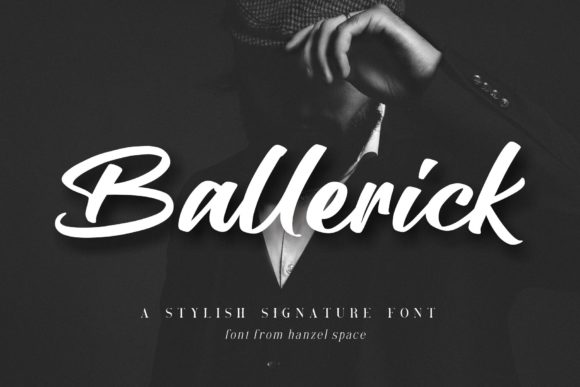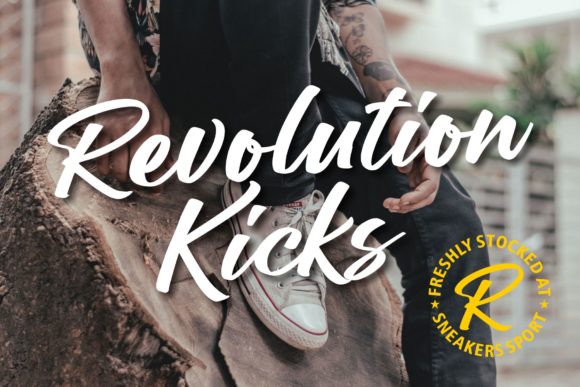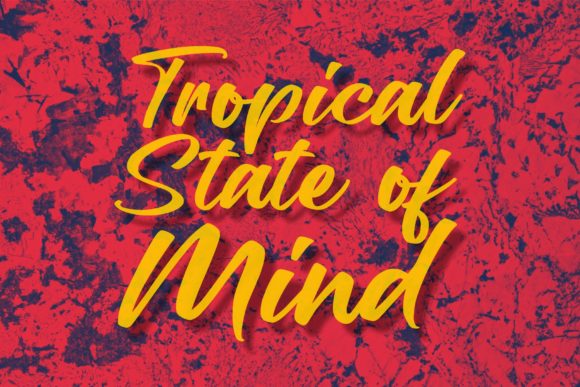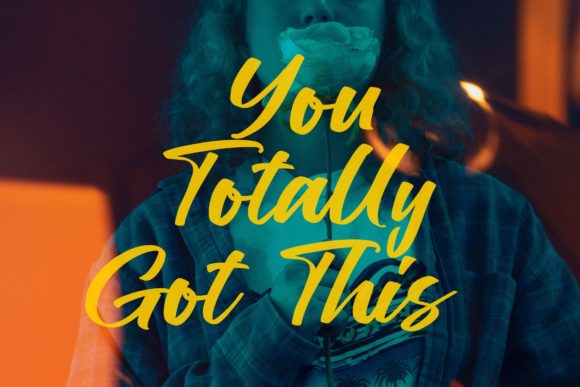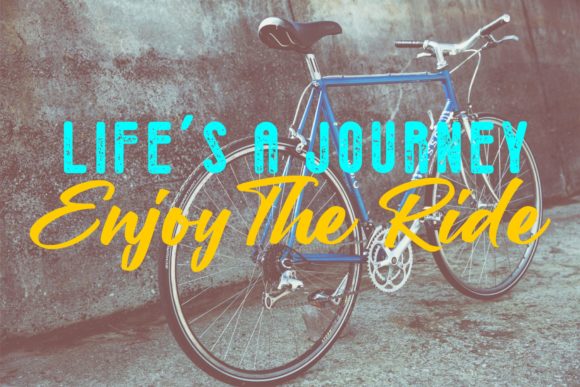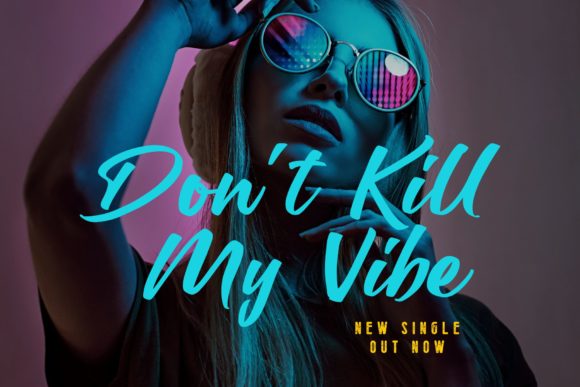
Ballerick Font
About Ballerick Font
Ballerick is a modern handwritten font. Fall in love with its incredibly versatile style and use it to create spectacular designs!